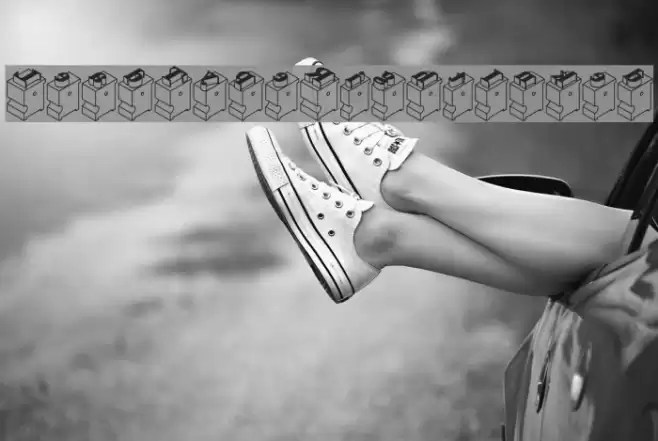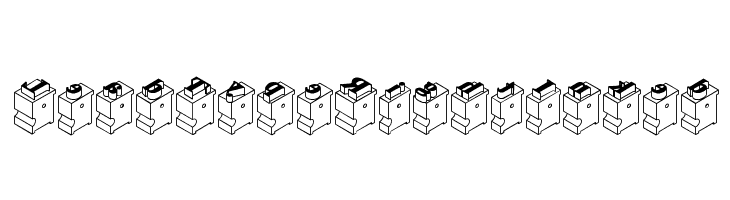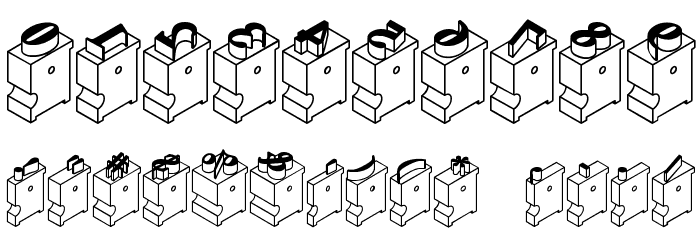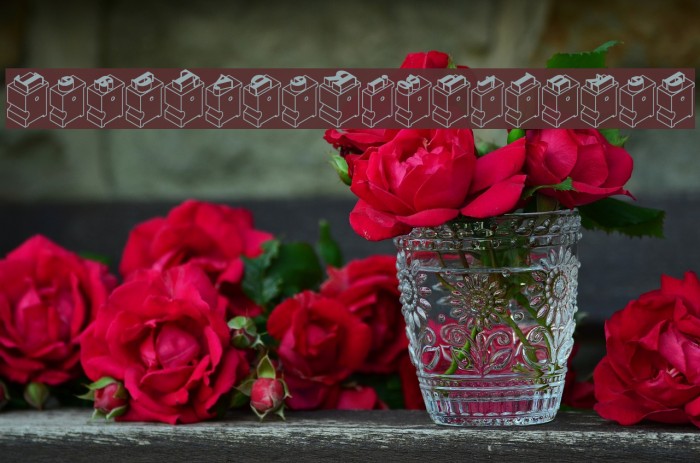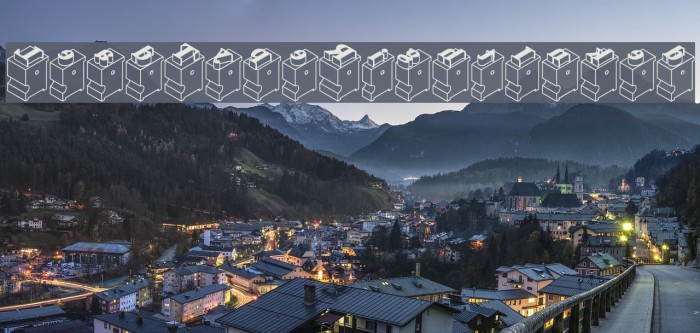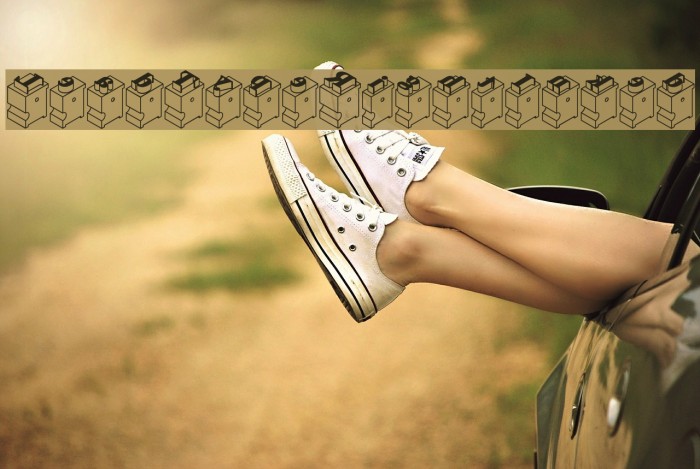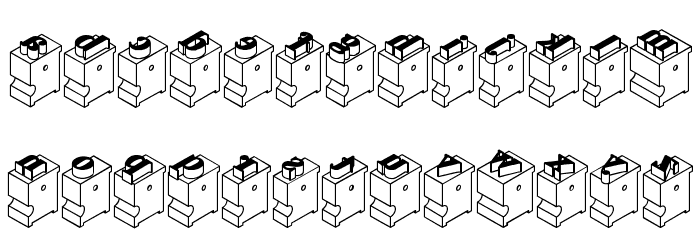
LeadTypeRightInked Font
LeadTypeRightInked Description
This font is a unique and creative representation of typefaces using three-dimensional lead type blocks. Each character is depicted as an inked lead type, showcasing a blend of traditional printing techniques with a modern twist. The letters are bold and have a distinct presence, with each character appearing as if it is ready to be pressed onto paper. The style is reminiscent of vintage printing methods, yet it carries a contemporary flair that makes it suitable for modern design projects. The intricate details of the lead blocks add depth and texture, making this font visually appealing and engaging.
A bold, 3D lead type-inspired font with a vintage yet modern appeal from Uncategorized fonts.
- Proposed Projects: Ideal for projects that require a vintage or industrial aesthetic, such as posters, branding for artisanal products, or any design that benefits from a tactile, three-dimensional look.
- Overall Style: Vintage, Modern